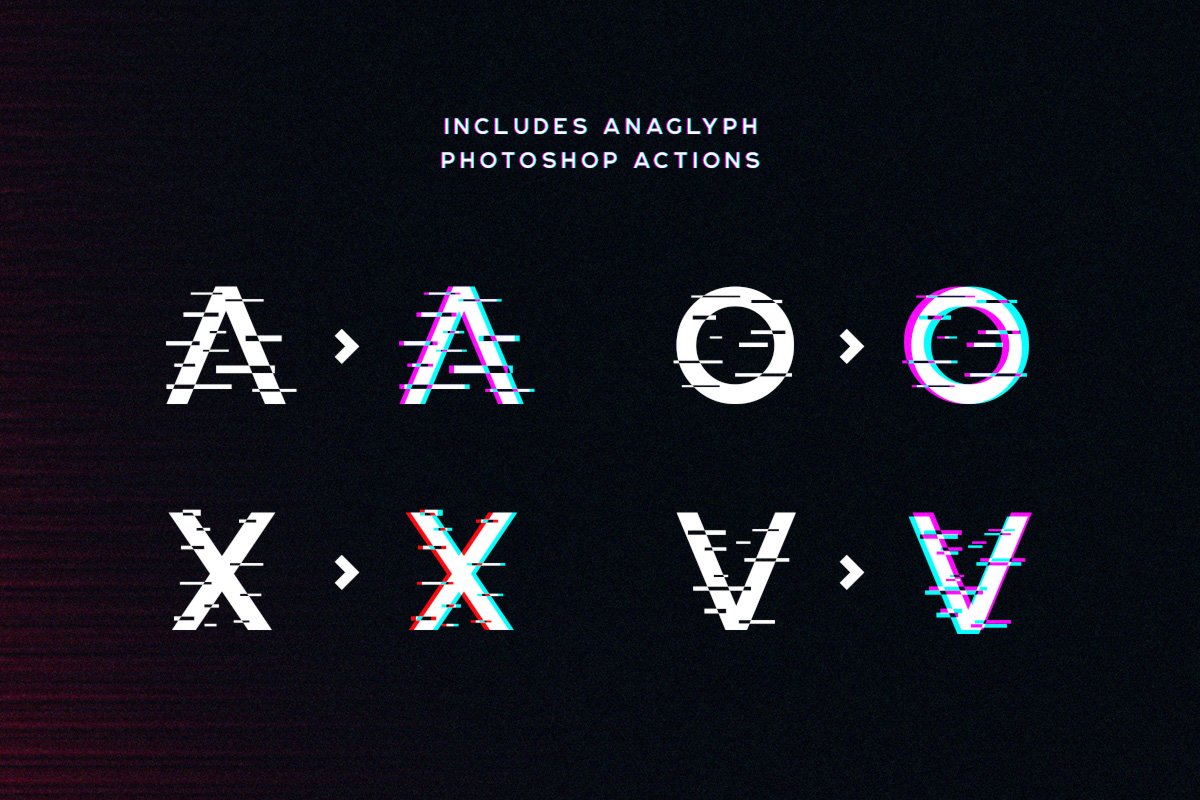
Avalon is a glitch font that only works well when used in large sizes. The purchase also includes 5 glitch textures and Photoshop actions to achieve an anaglyph effect identical to the one used on the preview images.